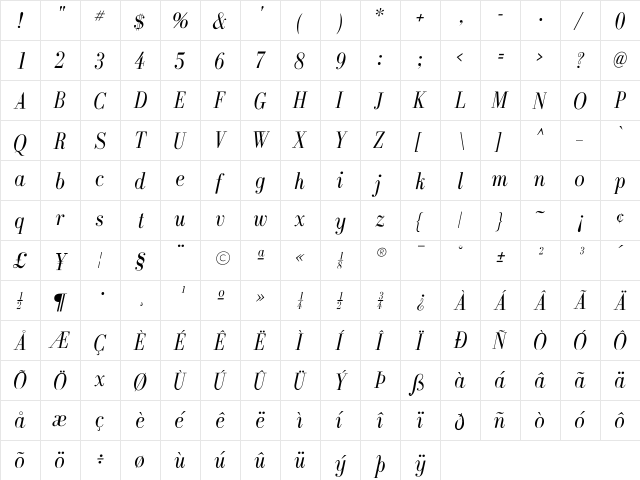
GalileoFLF Medium Italic Font Preview
GalileoFLF Medium Italic
Design Context for GalileoFLF Typeface
GalileoFLF offers clean, dependable letterforms without strong stylistic allegiance, making it a practical choice for designers who need flexibility. The slanted form adds forward momentum and visual energy.
Pro Tip: Use GalileoFLF for emphasis, pull quotes, and subheadings where its slanted energy can add rhythm to the layout.